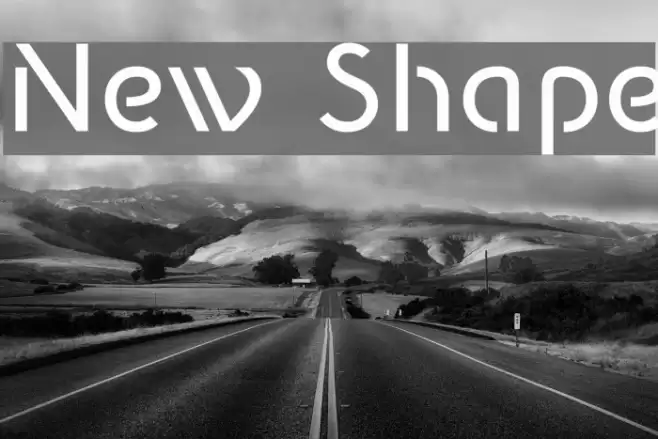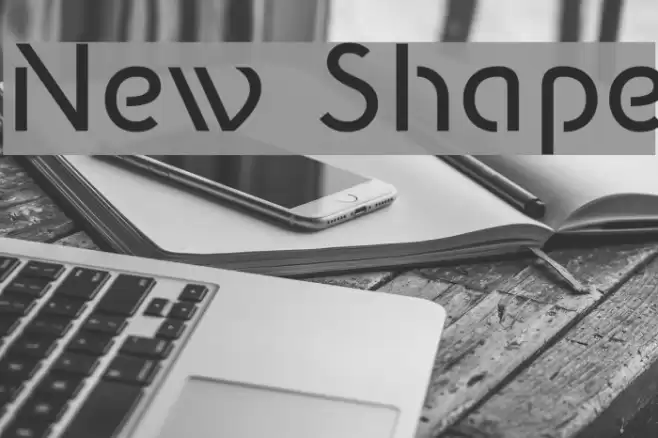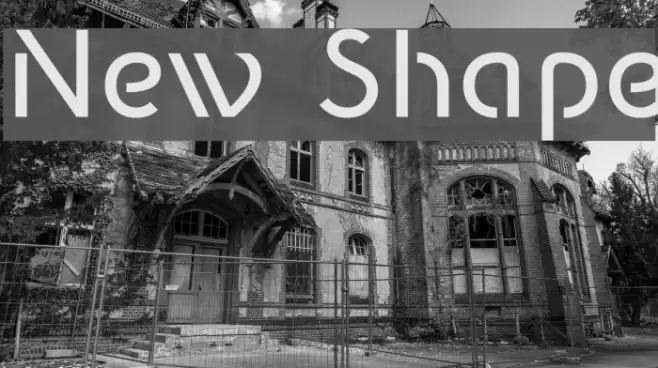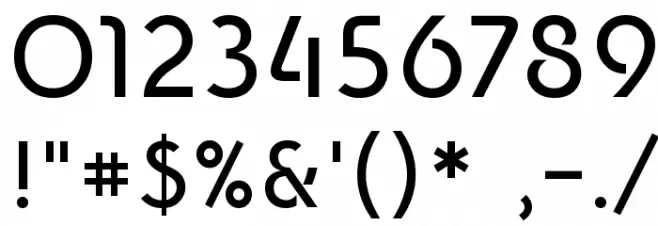
New Shape Font
New Shape Description
This font features a modern and geometric design with clean lines and a distinct futuristic feel. The characters are crafted with a unique blend of sharp angles and smooth curves, creating a dynamic and visually appealing typeface. The uppercase letters are bold and striking, while the lowercase letters maintain a consistent style with slightly softer edges. The numerals are clear and easy to read, complementing the overall aesthetic. Special characters are designed with the same attention to detail, ensuring uniformity across the font. This typeface is versatile and can be used in various design contexts.
A modern, geometric font with sharp angles and smooth curves from Uncategorized fonts.
- Proposed Projects: Ideal for branding, advertising, digital interfaces, and futuristic design projects.
- Use Case: Headlines, Logos, Digital Interfaces